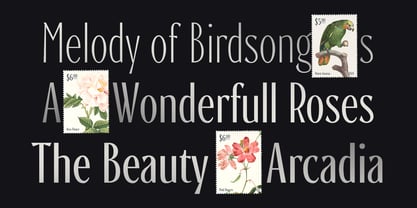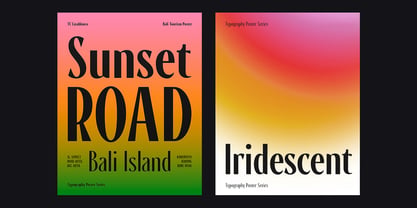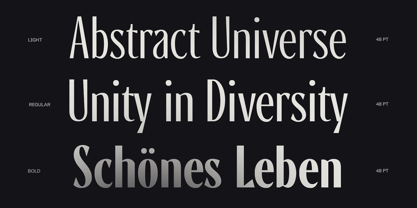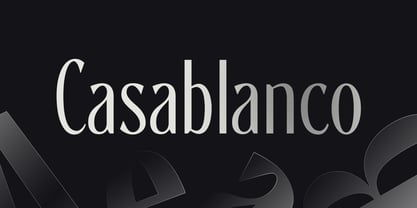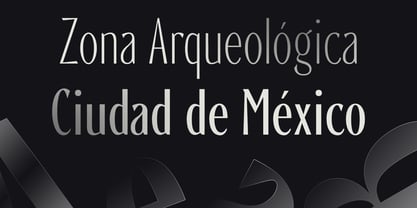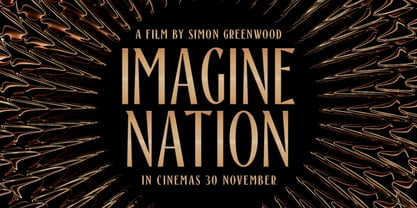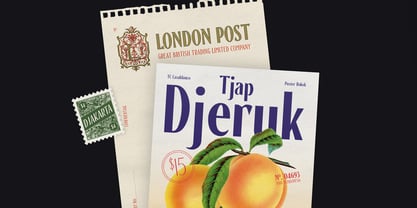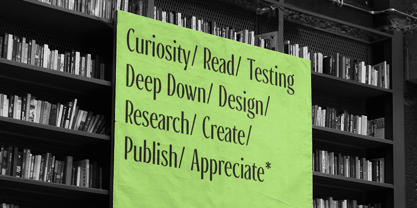
Casablanco
von Type Colony
Die Schriftfamilie Casablanco wurde von Aliv Pandu, Hasto Nugroho entworfen und von Type Colony veröffentlicht. Casablanco enthält 4 Stile und Familienpaketoptionen. Mehr über diese Familie
Casablanco is a versatile four-style type family Thin, Light, Regular, and Bold where vintage glamour seamlessly merges with classical refinement. This font fuses the geometric confidence of Art Deco with the elegance of Renaissance letterforms, resulting in a design that is both timeless and strikingly modern. Elegant yet powerful, Casablanco strikes a perfect balance between sophistication and exceptional readability, ensuring a smooth, effortless visual experience across both print and digital platforms. Ideal for designers seeking more than just a font, Casablanco embodies character, style, and presence in every letter, making it perfect for branding, editorial design, and web applications.
Type Colony is a distinguished type design collective based in Yogyakarta, founded in 2017 by Aliv Pandu. We are dedicated to creating unique and versatile typefaces that cater to designers around the globe. Our studio uniquely blends traditional craftsmanship with contemporary design principles, resulting in fonts that excel in a variety of applications, from branding to editorial use. Each typeface is thoughtfully crafted by our passionate team, ensuring quality and creativity in every design. Our commitment to innovation and excellence sets us apart in the type design industry, making us a trusted choice for professionals seeking distinctive typographic solutions. We serve a diverse range of industries, including editorial, technology, and retail, and our signature style reflects a harmonious balance between aesthetic appeal and functional design, ensuring that our fonts resonate with audiences across various platforms.